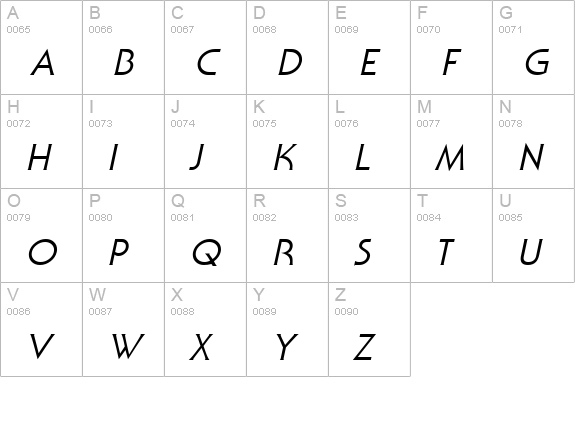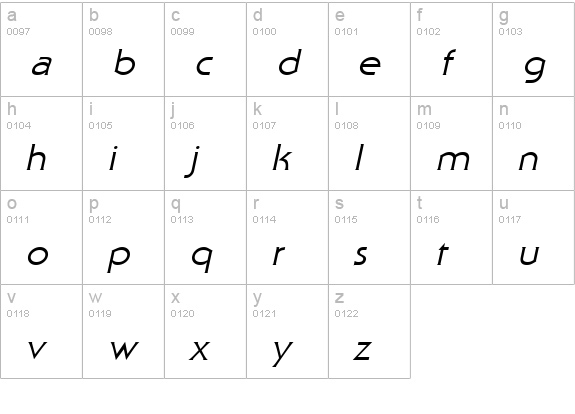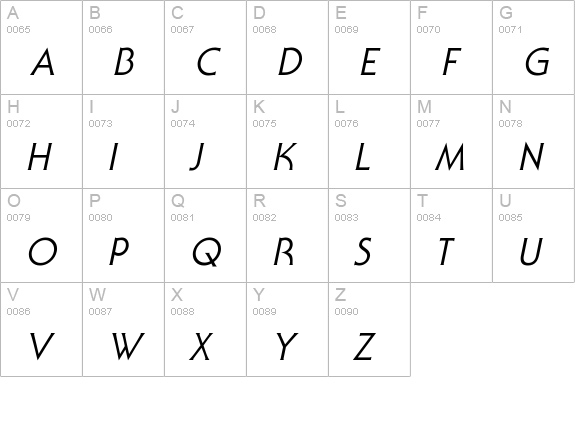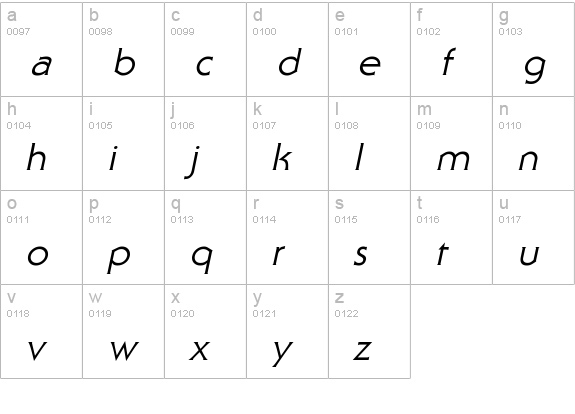
Staid Gothic Italic is a distinctive, italic variant in the Staid typeface family \xE2\x80\x94 well suited to design and typography projects.
Introducing Staid Gothic Italic, a captivating and sophisticated font that effortlessly blends the timeless elegance of Gothic letterforms with a modern twist. This unique typeface exudes an air of refinement and mystique, making it the perfect choice for projects that require a touch of intrigue. With its slender and slightly slanted characters, Staid Gothic Italic commands attention and adds a touch of drama to any design. The delicate curves and precise angles create a harmonious balance, resulting in a font that is both striking and legible. Staid Gothic Italic is not only visually stunning but also highly versatile, making it suitable for a wide range of applications. From editorial designs to branding projects, from invitations to packaging, this font effortlessly adapts to any creative endeavor, elevating it to new heights of sophistication. What makes Staid Gothic Italic even more remarkable is that it is available free of charge. Yes, you read that right – this exquisite font can be freely downloaded at FontsMarket.com. With just a few clicks, designers and enthusiasts alike can access this gem and unlock the potential to create breathtaking designs without any financial constraints. Whether you're a professional designer searching for a font that embodies elegance or an individual looking to add a touch of refinement to a personal project, Staid Gothic Italic is the perfect choice. Download it today and let your creativity soar to new heights with this stunning font, freely available at FontsMarket.com.